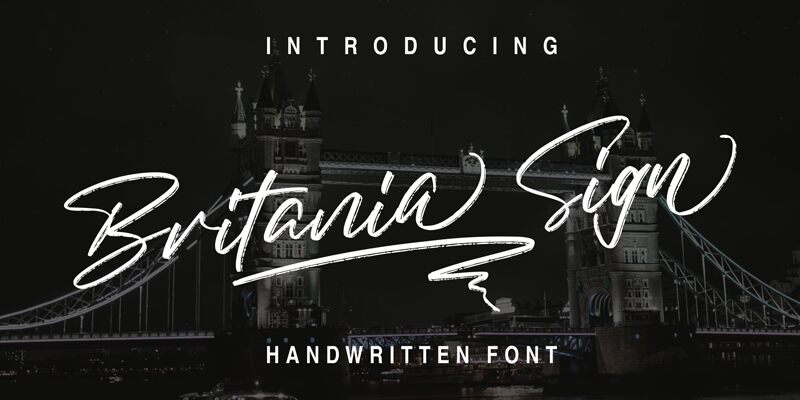
Introducing Britania Sign, the semi-light handwritten signature font designed by zamjumpstudio. With its elegant and flowing curves, Britania Sign adds a touch of sophistication to any project. Perfect for branding, logos, invitations, and more, this font exudes confidence and class. Its easy-to-read style makes it suitable for both digital and print media alike. Whether you're designing a wedding invitation or creating a website header, Britania Sign is sure to impress. Let your creativity flow with this stunning font and elevate your designs to new heights!
Britania Sign — Schriftpräsentation